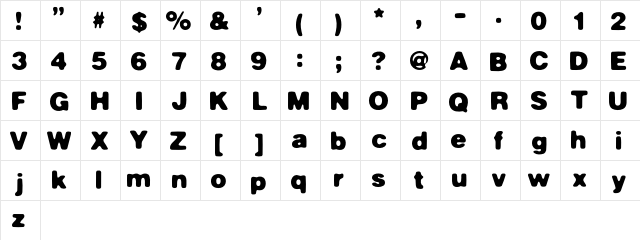
Masterly Bold
Design Context for Masterly Typeface
Masterly takes a measured approach to typography — its balanced proportions and neutral character make it a reliable workhorse for both digital and print work. The heavy weight commands attention and anchors typographic hierarchies.
Pro Tip: Use Masterly in both headline and body roles to test its range before committing to a single application.